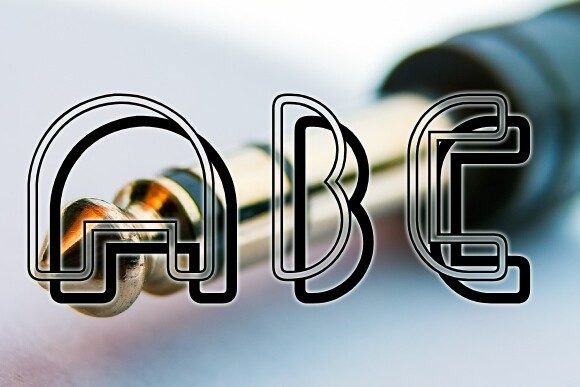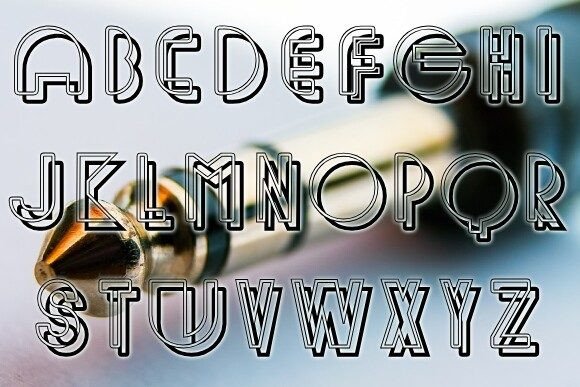
Cablegram Font: Elevate Your Designs with Stunning 3D Typography
In the world of graphic design, typography plays a crucial role in capturing the audience’s attention and conveying the message effectively. If you’re looking for a font that can add a touch of sophistication and grandeur to your designs, look no further than Cablegram Font. This stunning 3D typeface is designed to make your designs shine, and in this article, we’ll explore its features, benefits, and uses.
What is Cablegram Font?
Cablegram Font is a unique and impressive 3D typeface that can instantly elevate your designs to the next level. Its sleek and modern design makes it perfect for a wide range of applications, from posters and flyers to brochures and more. With its bold and eye-catching appearance, Cablegram Font is sure to grab the attention of your audience and leave a lasting impression.
Key Features of Cablegram Font
- Stunning 3D Design: Cablegram Font boasts a stunning 3D design that adds depth and dimension to your text.
- High-Quality Vectors: The font is made up of high-quality vectors, ensuring crisp and clean lines at any size.
- Versatile: The font is versatile and can be used for a wide range of applications, from print to digital media.
Benefits of Using Cablegram Font
Using Cablegram Font in your designs can have numerous benefits, including:
- Increased Visual Impact: The 3D design of Cablegram Font makes it a standout choice for designers looking to create visually striking text.
- Enhanced Professionalism: The sleek and modern design of Cablegram Font can add a touch of professionalism to your designs.
- Improved Readability: The bold and clear design of Cablegram Font makes it easy to read, even at smaller sizes.
Use Cases for Cablegram Font
Cablegram Font is a versatile typeface that can be used in a variety of applications, including:
- Posters: Use Cablegram Font to create eye-catching posters that grab the attention of your audience.
- Flyers: Add a touch of sophistication to your flyers with Cablegram Font.
- Brochures: Use Cablegram Font to create professional-looking brochures that showcase your products or services.
- Digital Media: Cablegram Font can also be used in digital media, such as social media graphics, video titles, and more.
Tips for Using Cablegram Font
Here are some tips for using Cablegram Font effectively in your designs:
- Use it Sparingly: While Cablegram Font is stunning, it’s best to use it sparingly to avoid overwhelming your design.
- Pair it with Other Fonts: Cablegram Font can be paired with other fonts to create a unique and visually appealing design.
Cablegram Font is a stunning 3D typeface that can elevate your designs to the next level. With its sleek and modern design, high-quality vectors, and ease of use, it’s perfect for designers looking to create visually striking text. Whether you’re creating posters, flyers, brochures, or digital media, Cablegram Font is a versatile choice that can help you achieve your design goals.